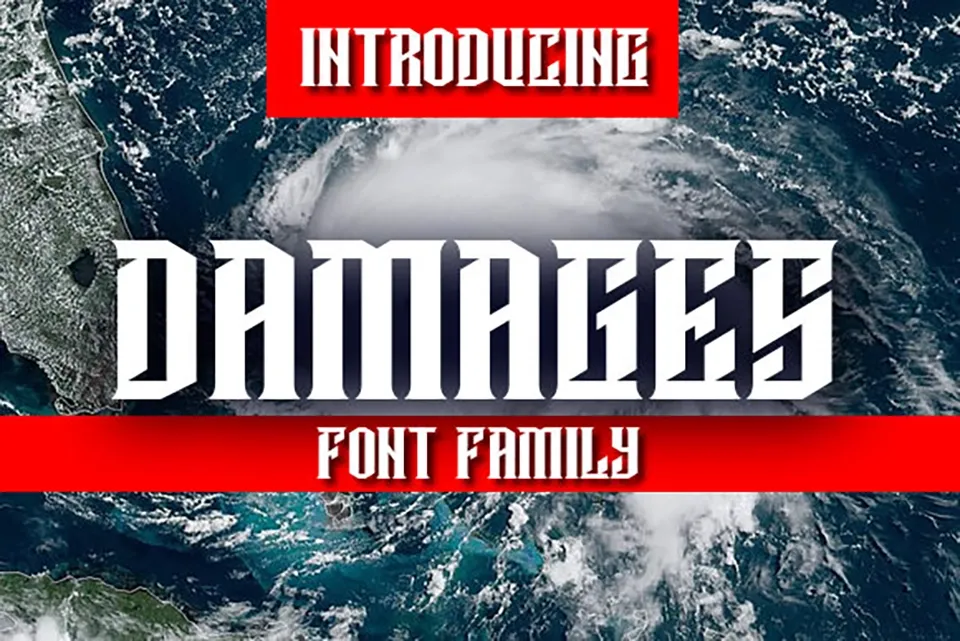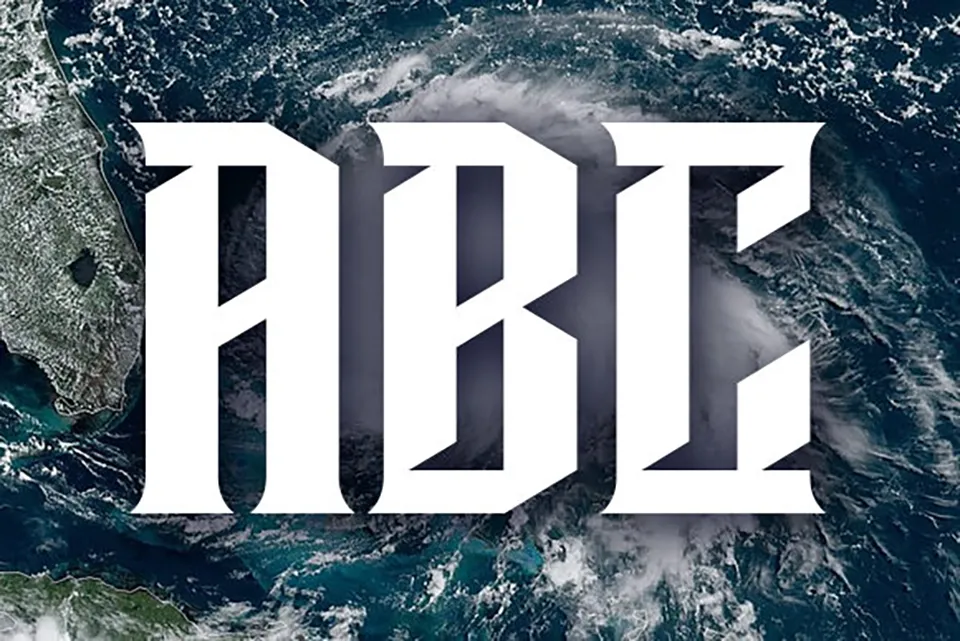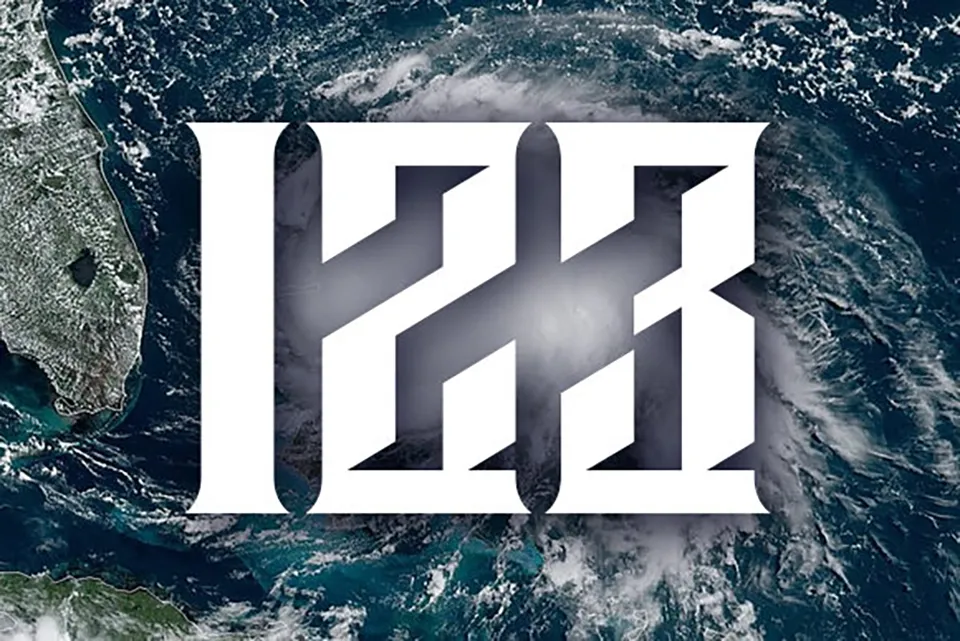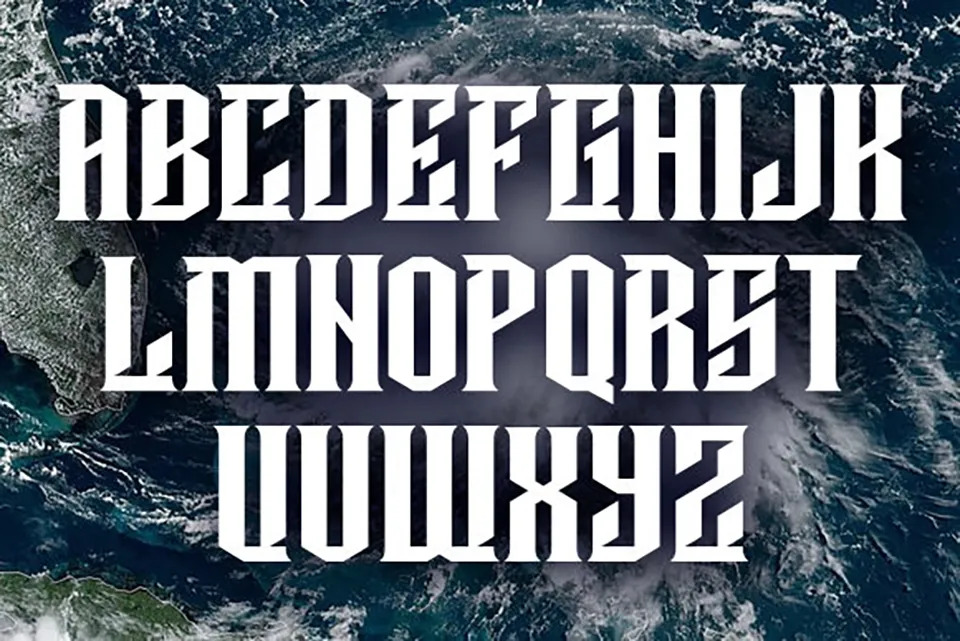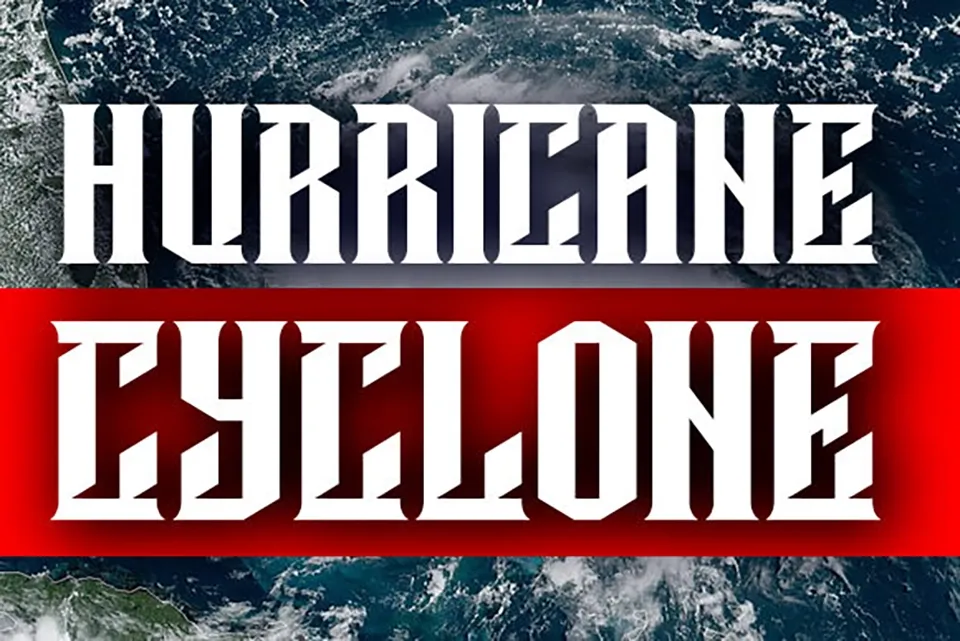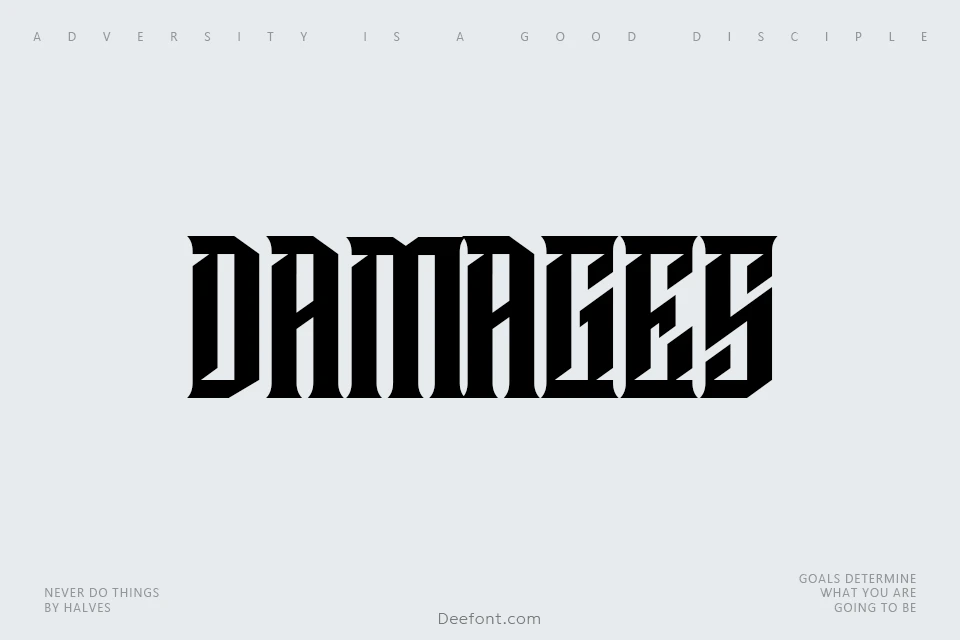
Damages Font
Damages Font is a striking Gothic display typeface designed by Vladimir Nikolic in 2018. This powerful font family consists of 6 different style variations, including regular, italic, 3D, and 3D filled versions, making it perfect for impactful headlines and creative projects. The Damages Font features bold, condensed letterforms with a modern Gothic aesthetic that commands attention. With its dramatic appearance and multiple style options, this versatile typeface is ideal for posters, logos, gaming graphics, and any design project that requires a strong visual presence. The font supports multiple languages and has been downloaded over 20,000 times by designers worldwide.